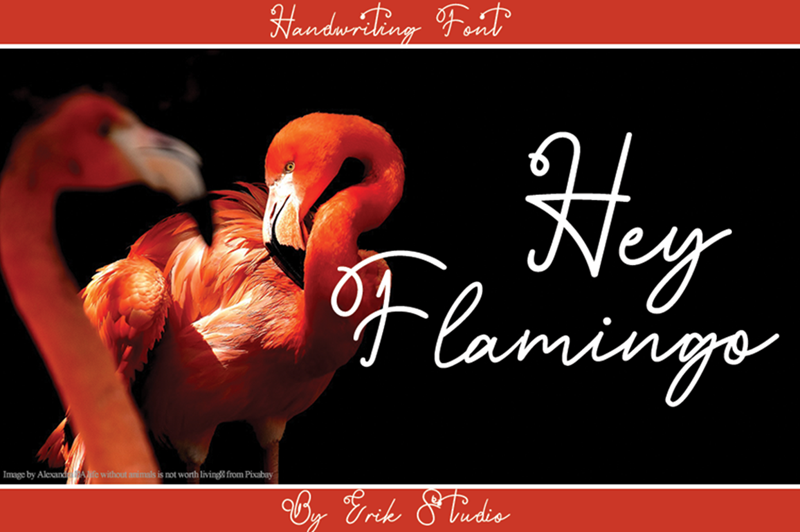
Preview and download Hey Flamingo Font. Created by Erik Luluk in Script Handwritten styles with Free for personal use license.
Hey Flamingo is a flowing handwritten font, described by an elegant touch, perfect for your favorite projects. Fall in love with its incredibly distinct and timeless style and use it to create spectacular designs! Attention : Hey Flamingo handwriting Font is prohibited to use this font for commercial purposes or for profit without the permission of the author/admin, without being known to use this font without permission, will be subject to sanctions 5x the specified price. This font is used only for demos (Demo license) If you want to use this font for commercial use please contact email: erikluluk0@gmail.com or click the link below: https://www.creativefabrica.com/product/hey-flamingo/ref/745146/ If you want to see more other fonts, please click:https://www.creativefabrica.com/designer/erik-studio/ref/745146/ Any donations are very appreciated. Paypal account for donation: https://paypal.me/erikstudio1 |